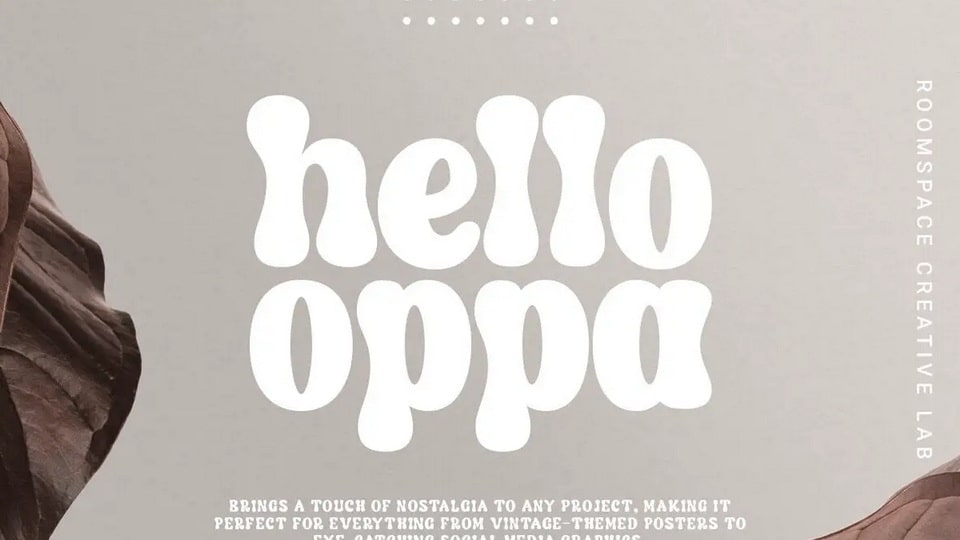
Download Hello Oppa font, a delightful modern retro display typeface. With its chunky and playful style, Hello Oppa brings a touch of nostalgia to any project.